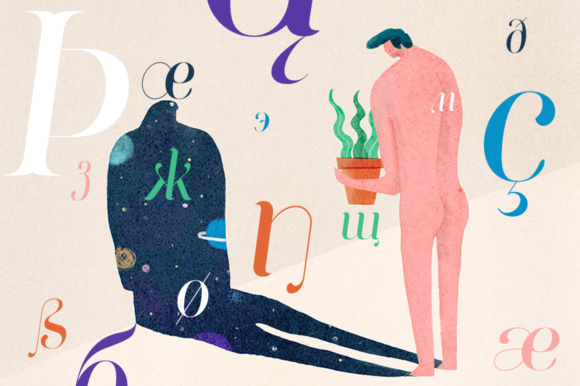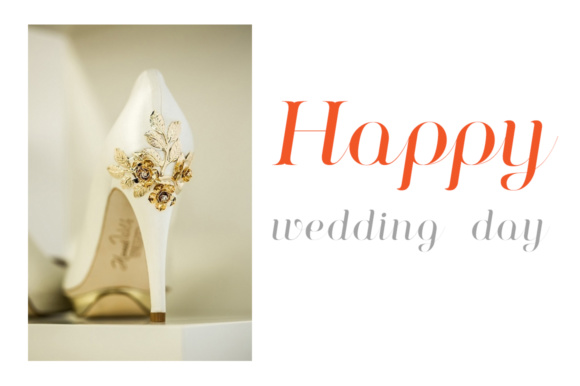
Introduction to Curator Script Font
Curator Script is a cool, high contrast display font that can add a ton of charm to your designs.
This font has a modern and cool appeal and can add an artistic effect to your work .
Key Features of Curator Script Font
Why Choose Curator Script Font?
Curator Script Font offers exceptional quality and versatility, making it a valuable addition to your design toolkit. Whether you’re creating for personal projects or commercial use, Curator Script Font delivers professional results.